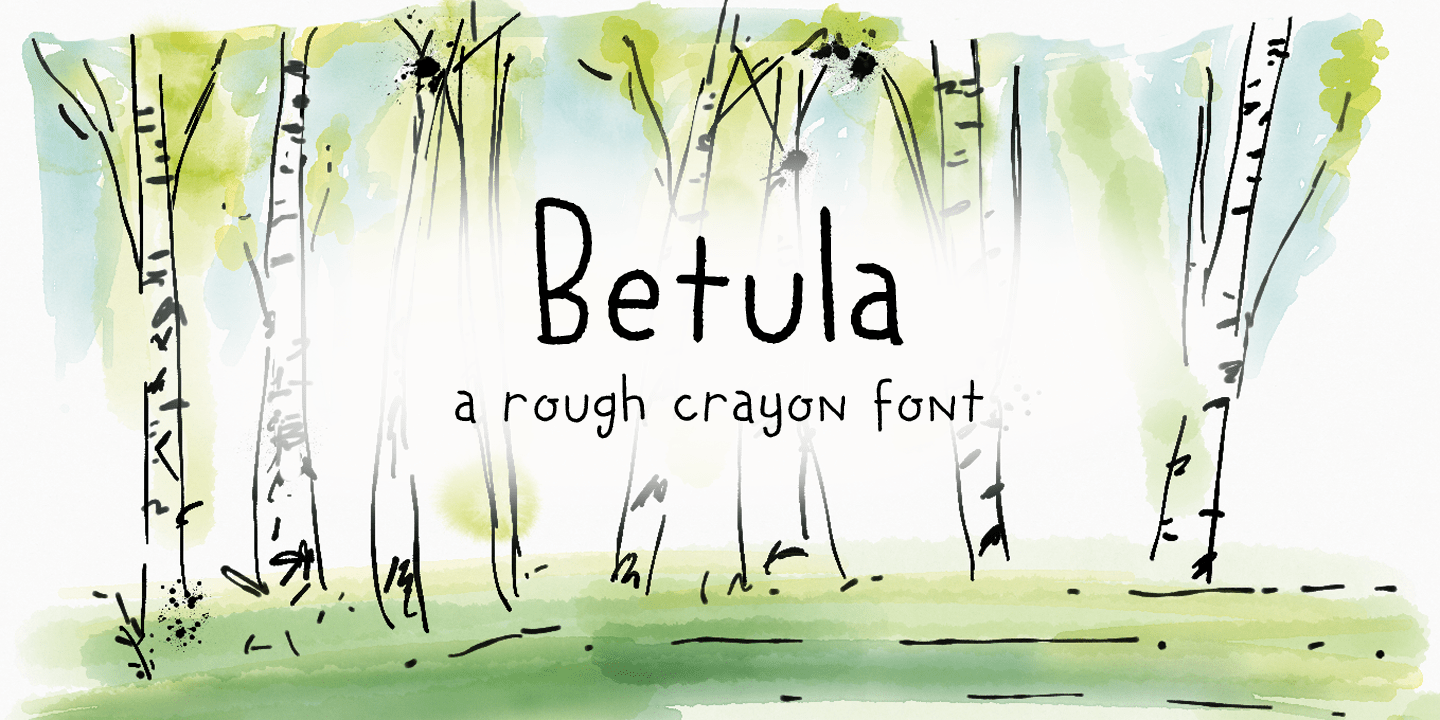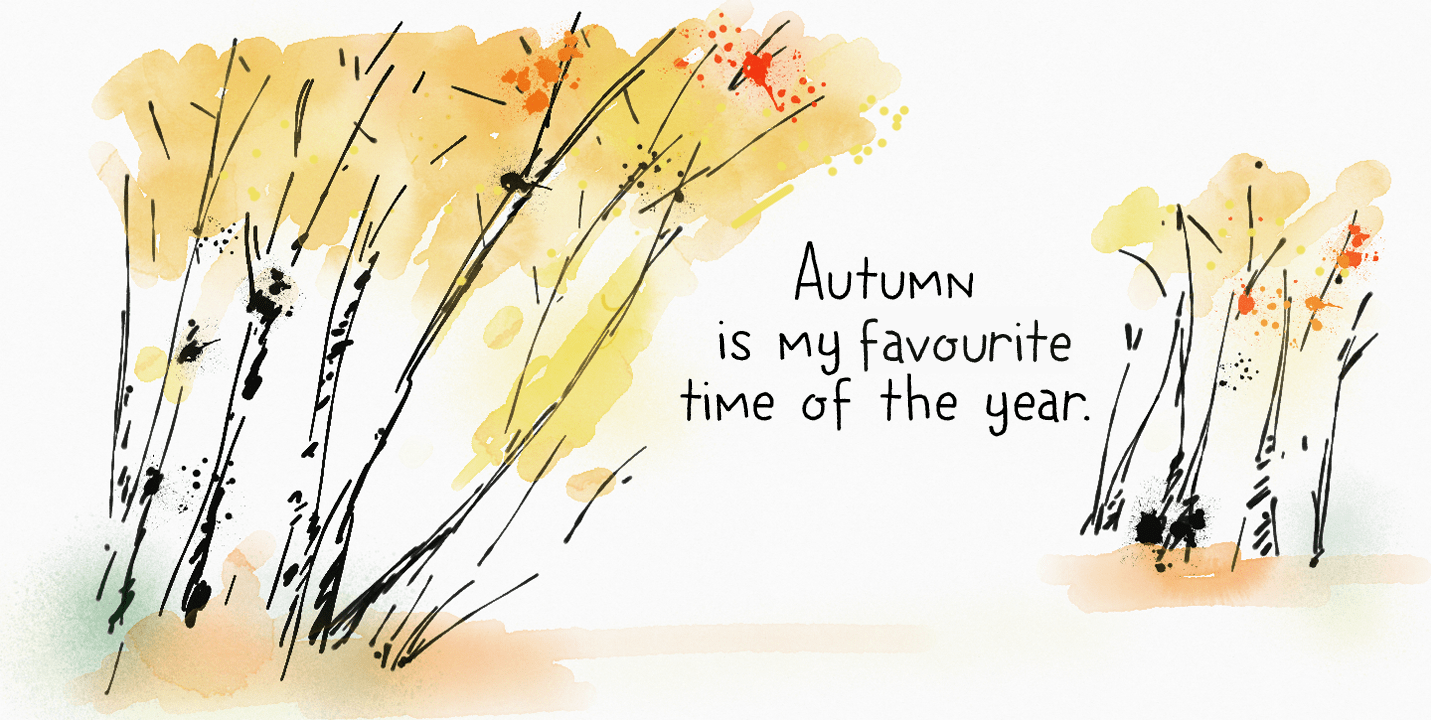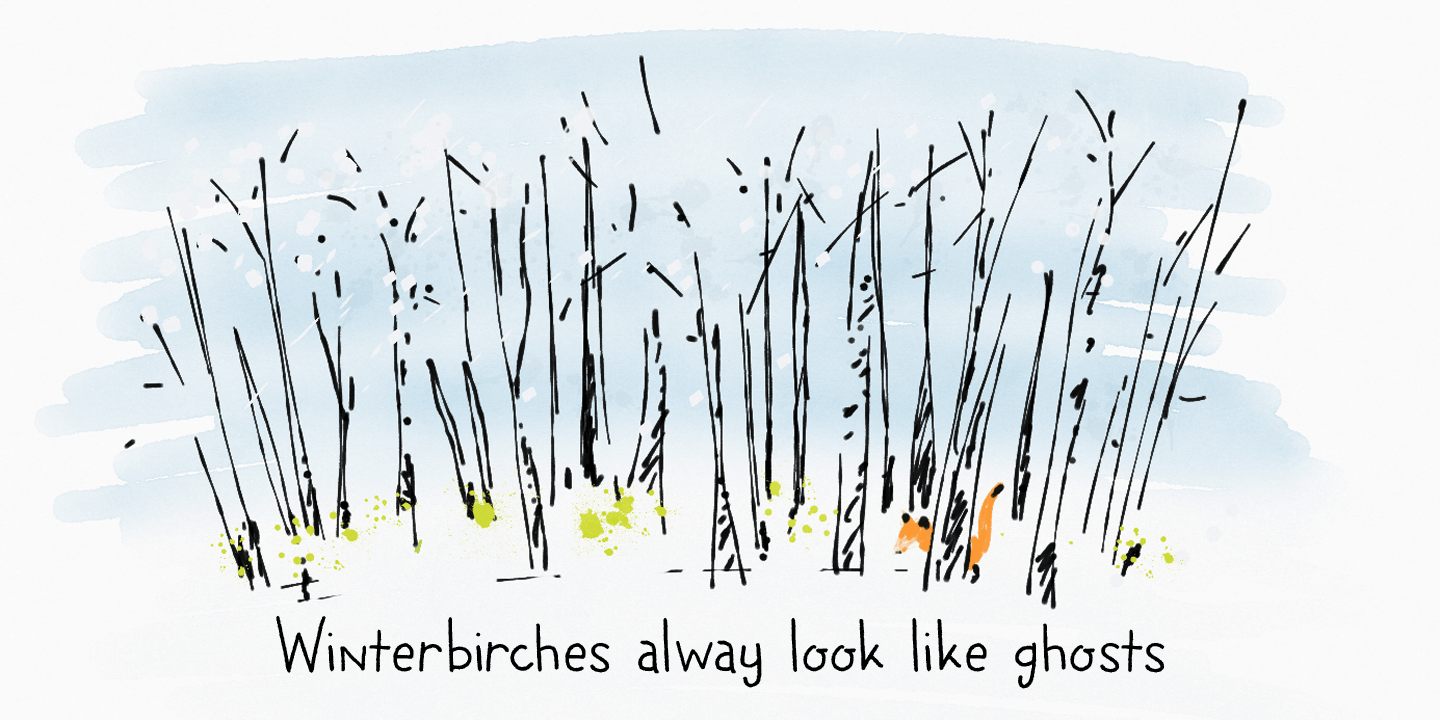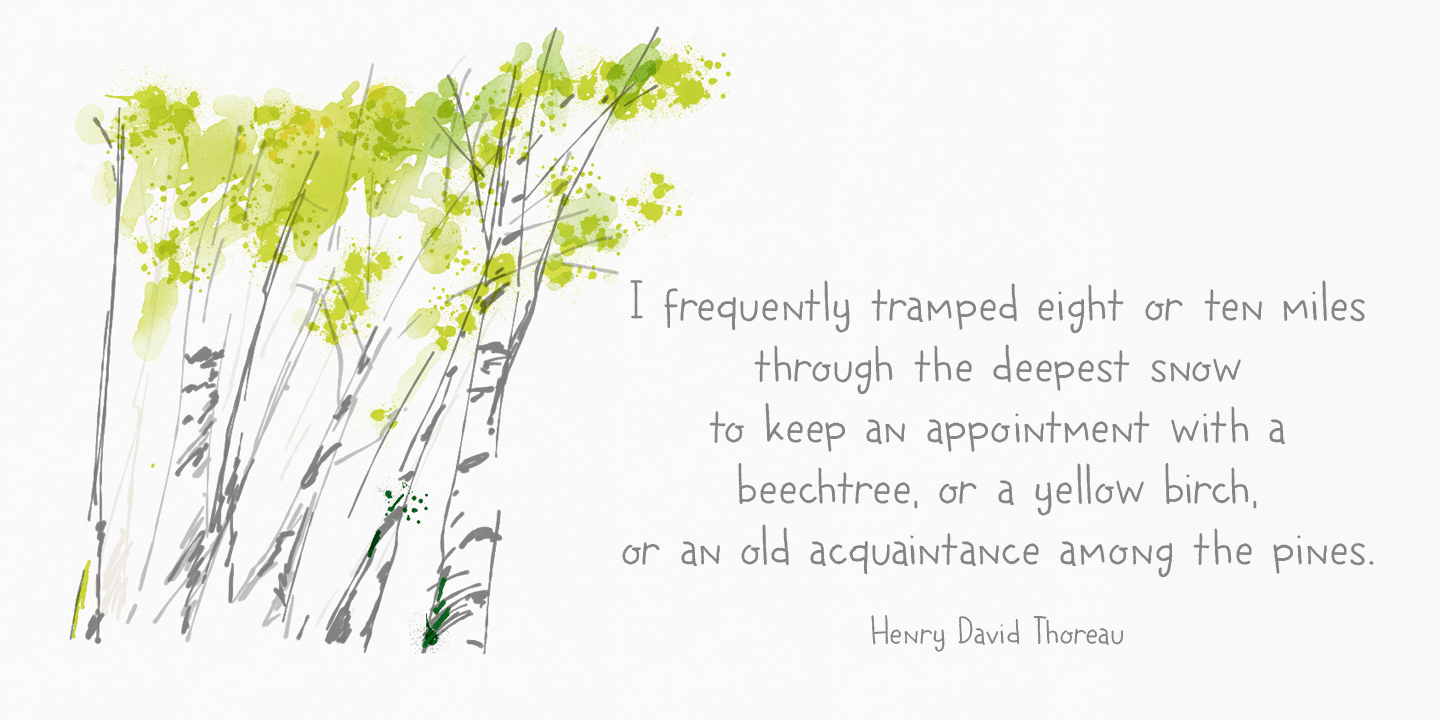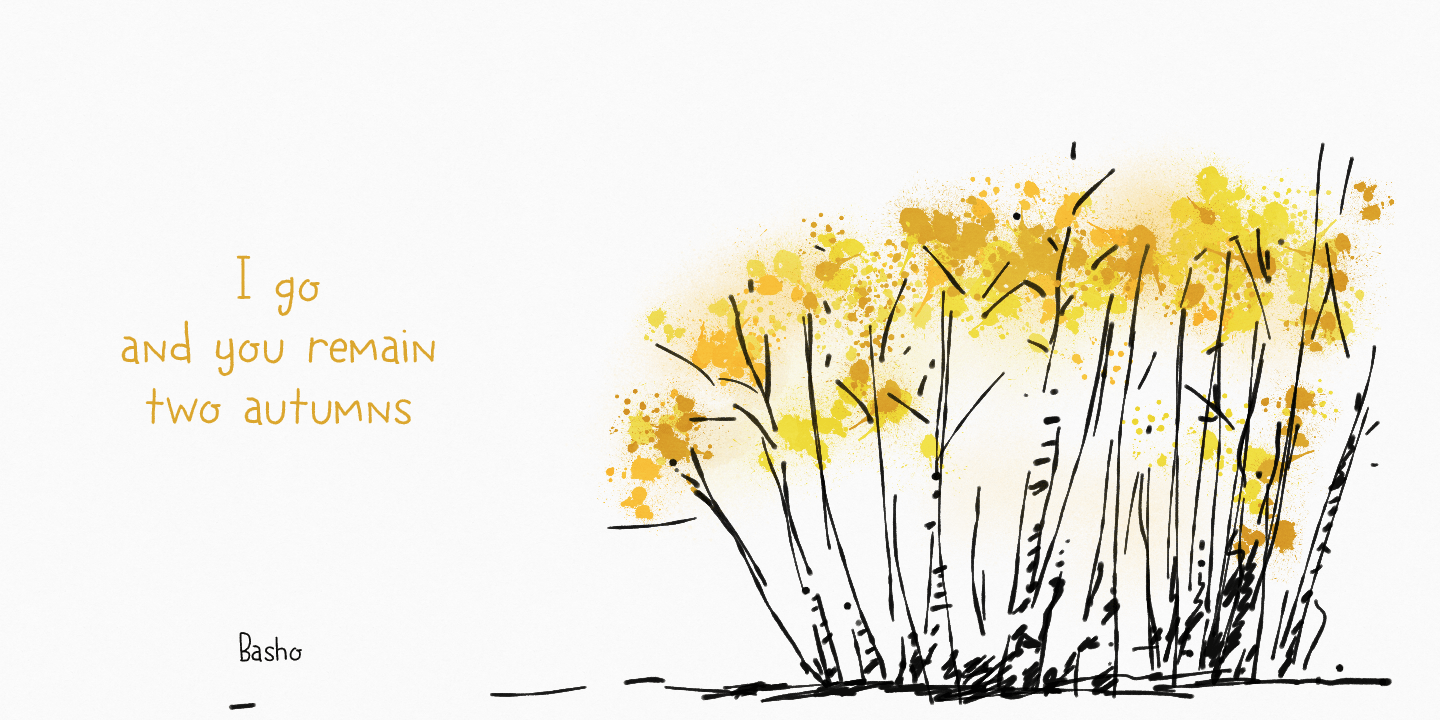
Betula
Betula is the scientific name for Birch - I probably don't have to explain that birches are my favourite trees! They always look like the ghosts of the forest with their papery white bark and dark blotches.
Betula is a rough, crayon-like font. Very legible with a childlike appearance. Comes with a forest of diacritics.